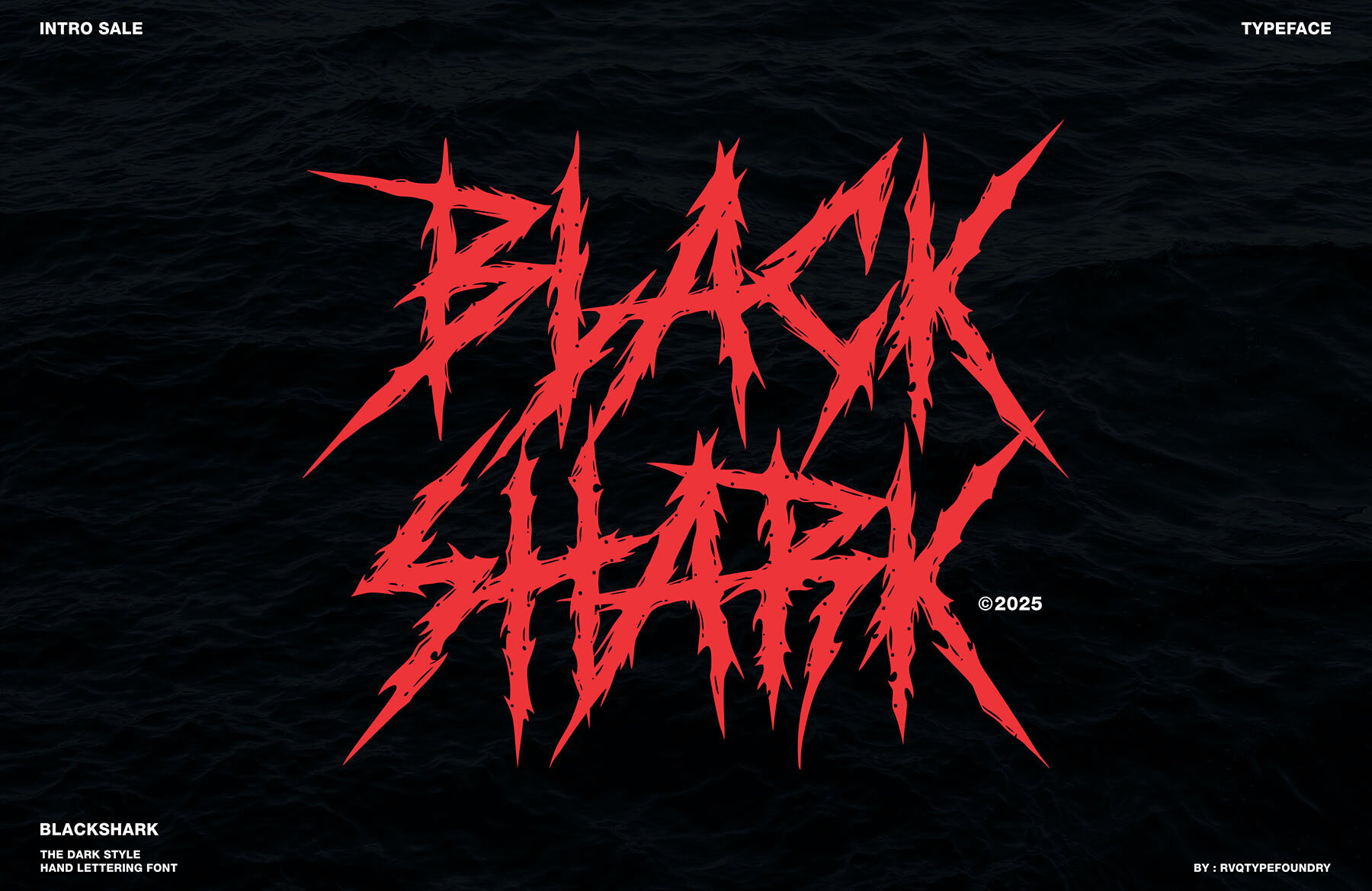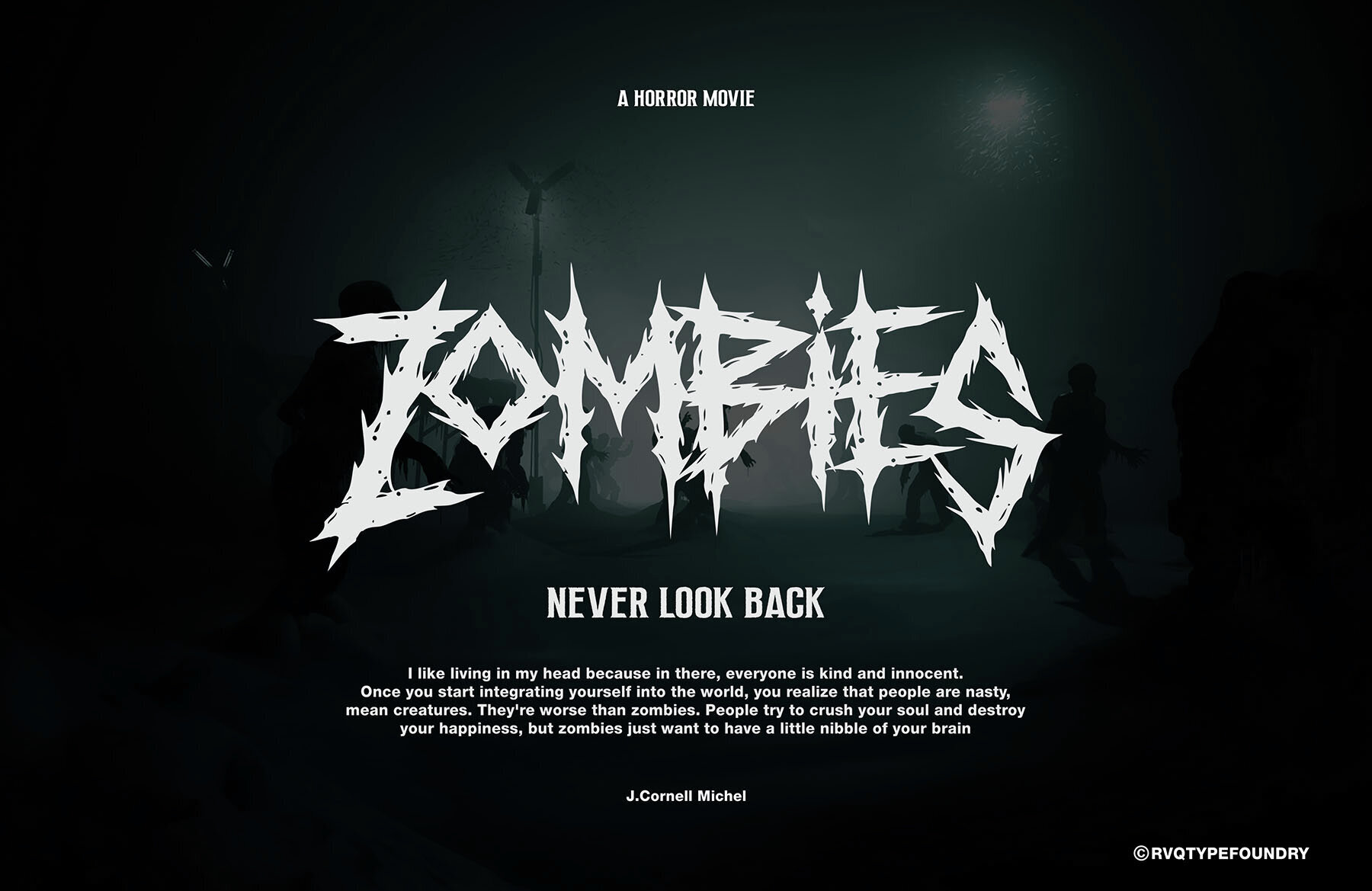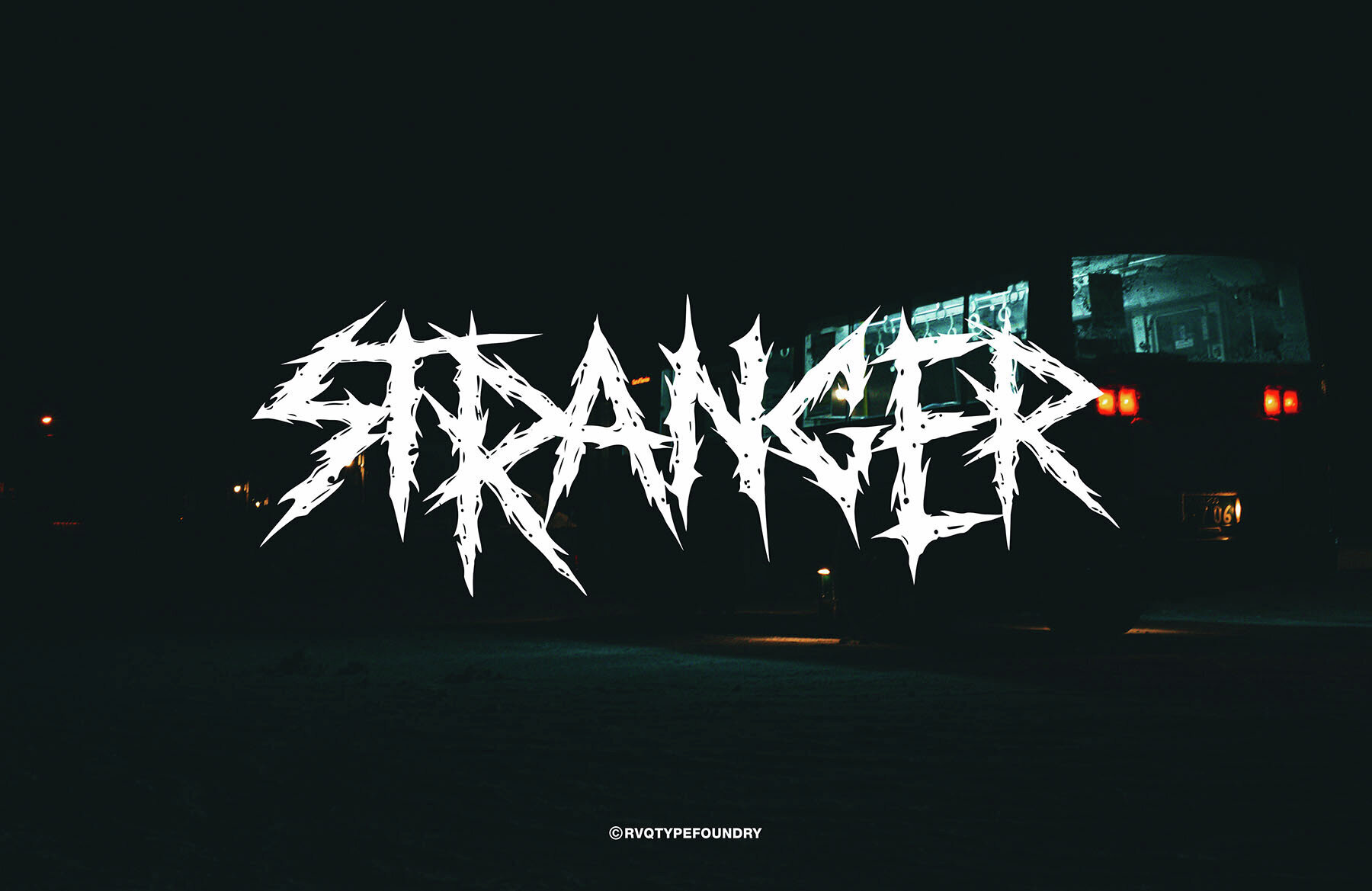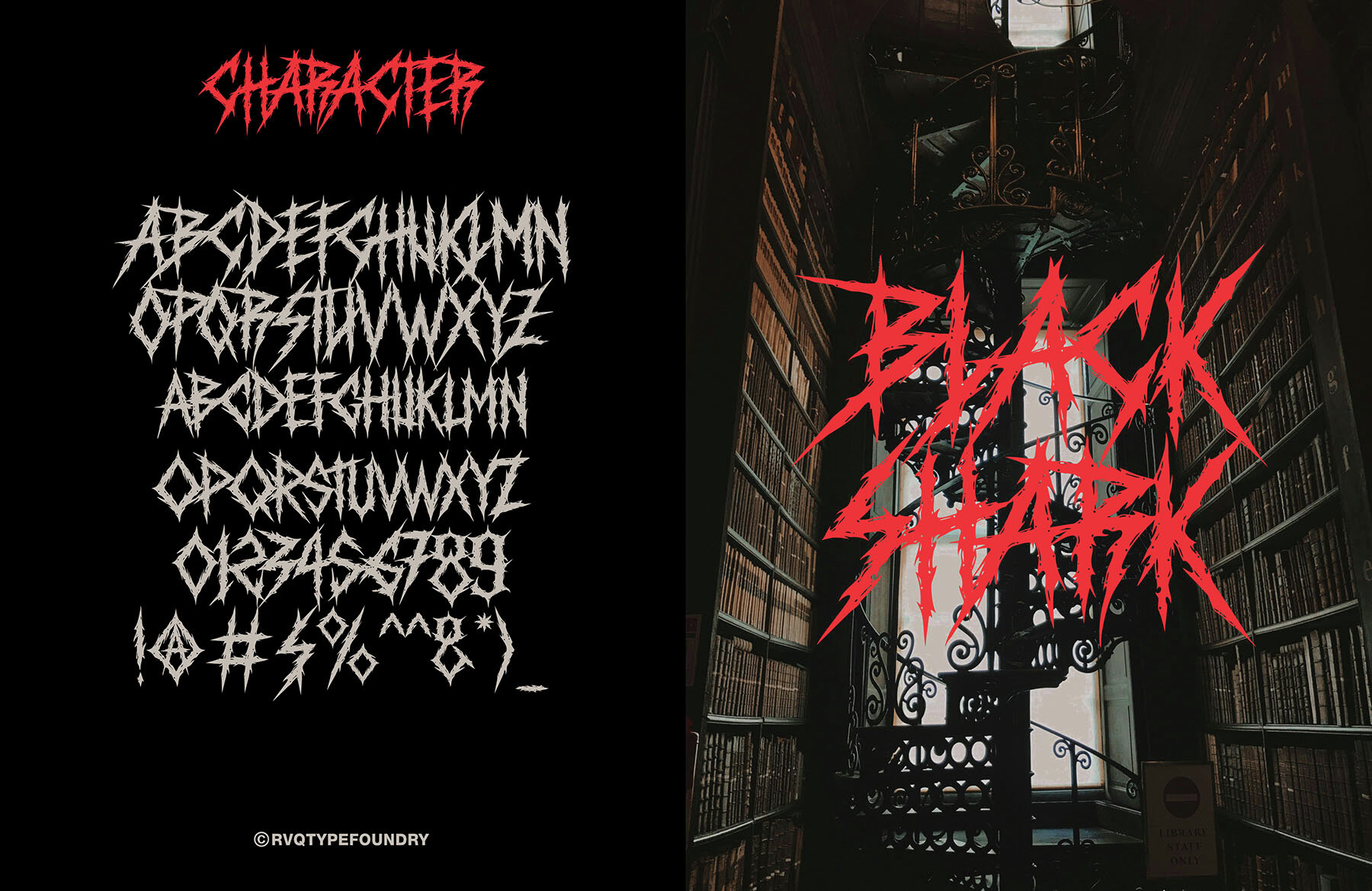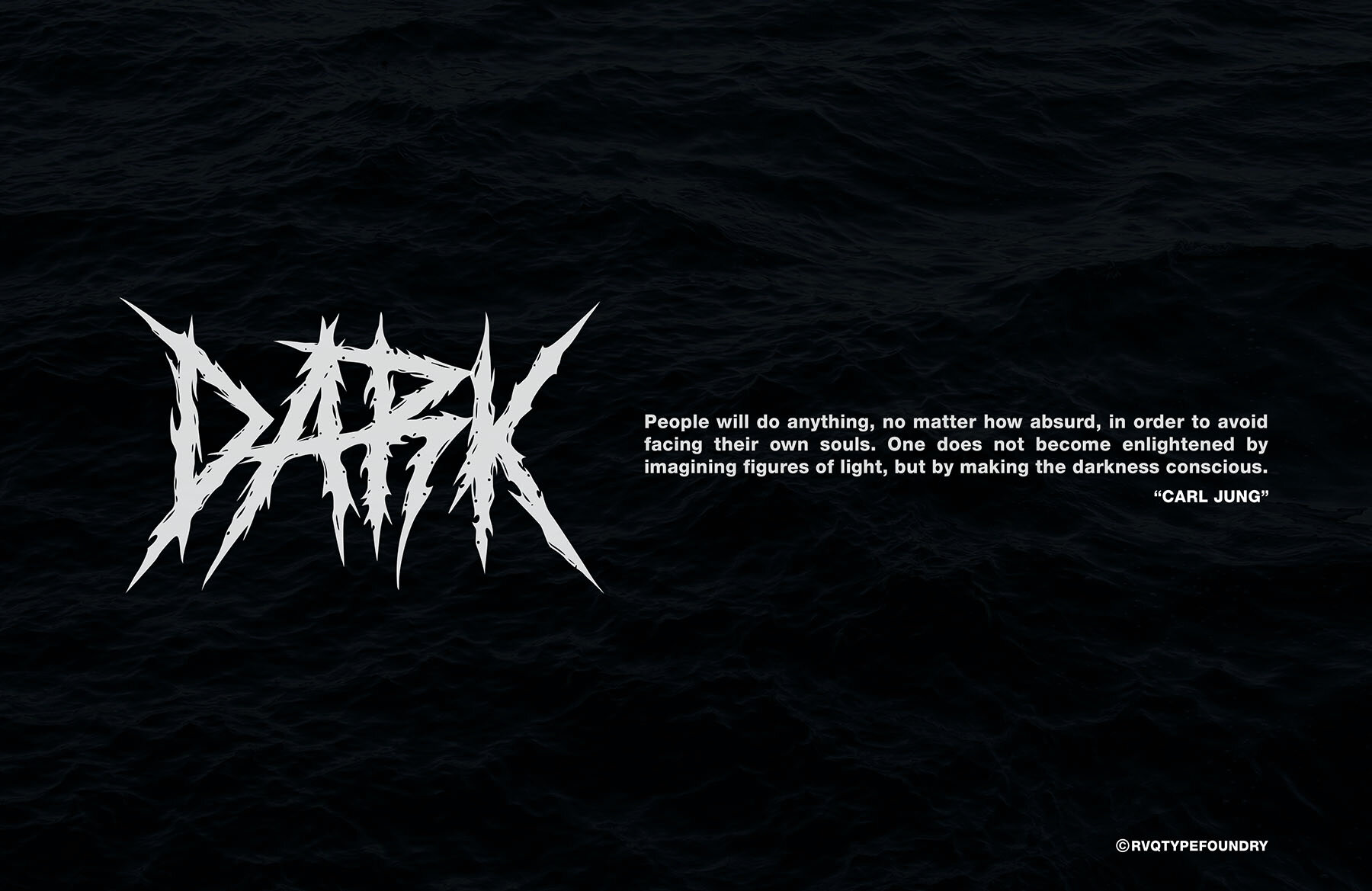
Blackshark Font
BLACKSHARK Regular
Blackshark is a bold and dynamic brutal brush font by Rvq Type Foundry. Crafted with hand lettering, it offers a unique combination of alternative characters, making it a versatile choice for a variety of creative projects. This font is ideal for designing band covers, music albums, branding materials, and logos. It also adds a distinctive flair to stationery, invitations, T-shirts, apparel, packaging designs, posters, and other typographic works.
Features include a comprehensive character set from A-Z and a full range of numerals and punctuations, following OpenType standards. Additionally, Blackshark provides stylistic alternates to enhance your design's visual impact. Perfect for designers seeking a strong and contemporary brush font.